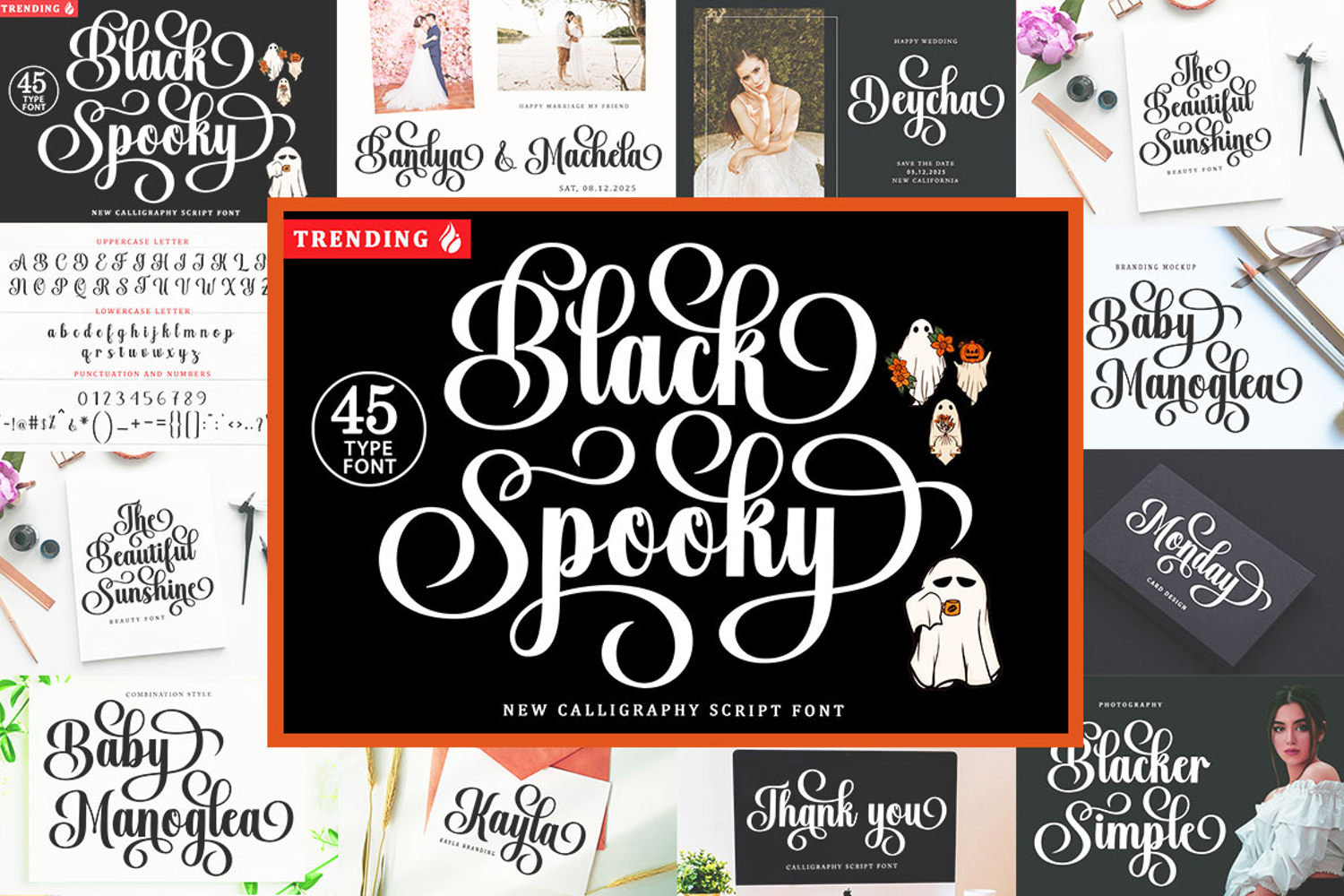
Black Spooky - Family Font In 45 Type
Black Spooky Scipt is a modern script font with a classic and elegant touch.
Black Spooky font is sleek, clean, feminine, sensual, glamorous, simple, and highly legible thanks to its many beautiful letter connections. I also offer a number of stylish alternatives for some of the letters. This classic style is perfect for use in various formal formats such as invitations, labels, restaurant menus, logos, fashion, makeup, stationery, novels, magazines, books, greeting/wedding cards, packaging, labels, or any advertising purposes. . . . . . .
• Has 45 New Type Fonts.
• Regular, Slant, Bold, Bold Slant, Outline, Outline Slant, Hatching, Hatching Slant.
• Uppercase Letters
• Lowercase Letters
• Alternatives / Style
• Punctuation
• Multilingual support.